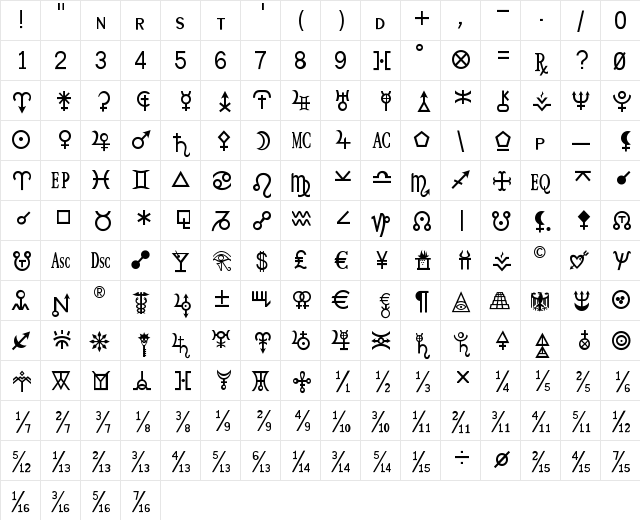
HamburgSymbols Regular
Design Context for HamburgSymbols Typeface
HamburgSymbols offers clean, dependable letterforms without strong stylistic allegiance, making it a practical choice for designers who need flexibility.
Dating back to 2005, this typeface is available in TrueType (TTF) format.